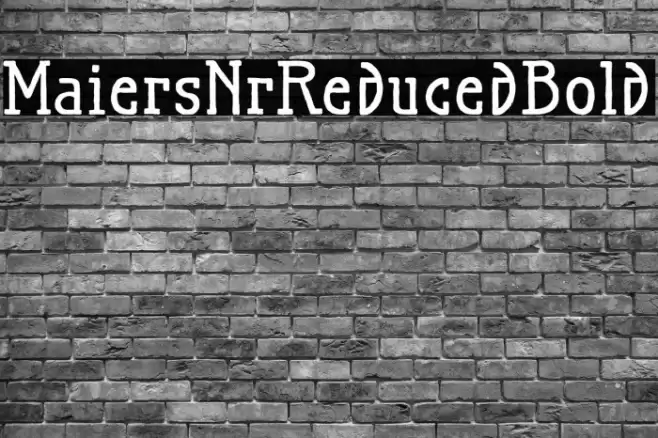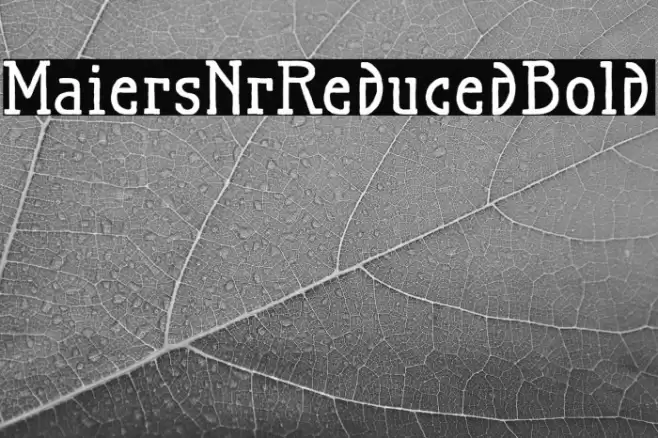
MaiersNr.Reduced-Bold Font
MaiersNr.Reduced-Bold Description
This font exhibits a bold and distinctive style characterized by its strong, sturdy letterforms and slightly irregular edges, giving it a hand-crafted appearance. The uppercase letters are tall and commanding, while the lowercase letters maintain a consistent height, providing a balanced look. The serifs are prominent yet not overly exaggerated, adding a touch of classic elegance to the overall design. The font's unique personality is further enhanced by its slightly condensed width, making it suitable for impactful headlines and titles. The characters are well-spaced, ensuring readability while maintaining a cohesive visual flow. The contrast in stroke thickness is medium, offering a harmonious blend of boldness and subtlety.
A bold, handcrafted serif font with medium contrast and slightly condensed width from Uncategorized fonts.
- Proposed Projects: Ideal for vintage-themed posters, book covers, branding projects, and editorial headlines.
- Overall Style: Vintage